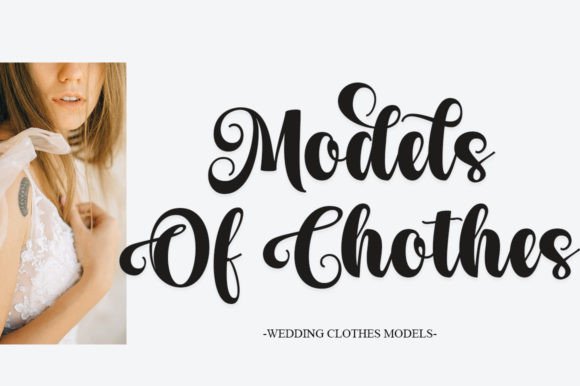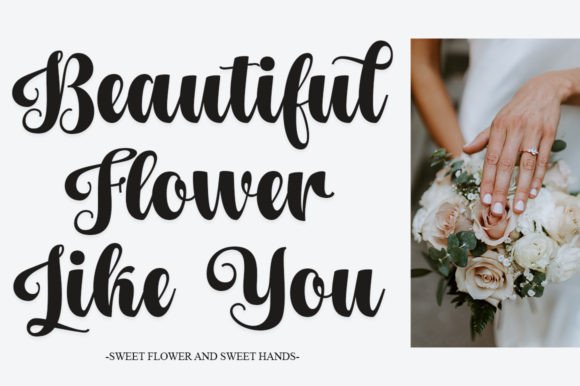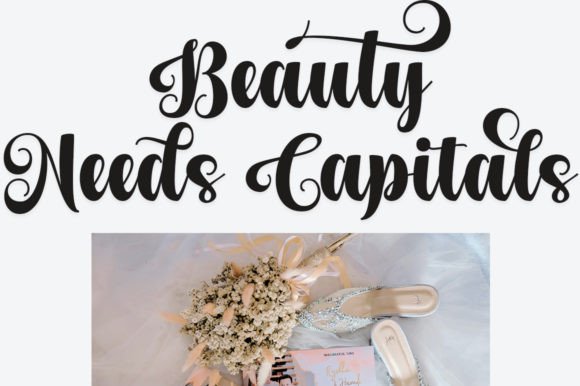
Introduction to Mastora Font
Mastora is a smooth, elegant, and flowing handwritten font perfect for your favorite projects.
Fall in love with her completely different and timeless style, and use it to create spectacular designs This font is PUA coded, which means you can easily access all the glyphs and swashes.
Mastora Font offers exceptional quality and versatility, making it a valuable addition to your design toolkit. Whether you’re creating for personal projects or commercial use, Mastora Font delivers professional results.